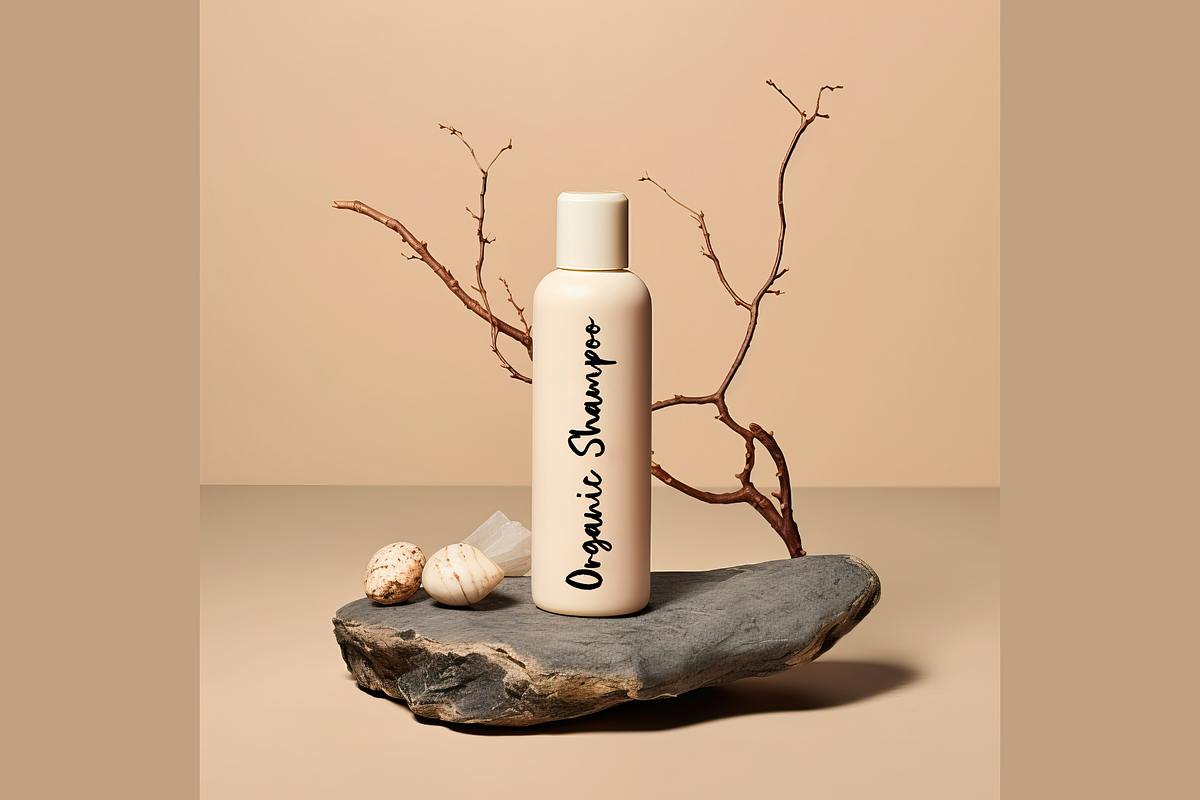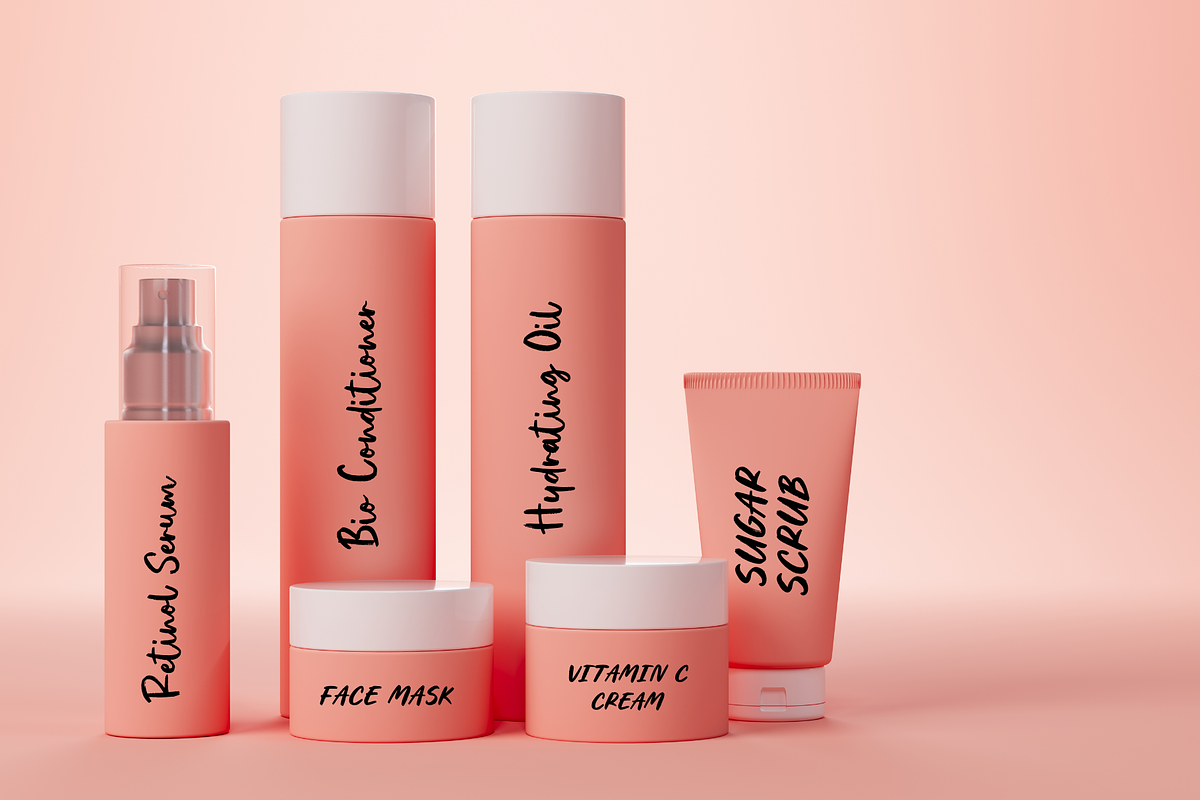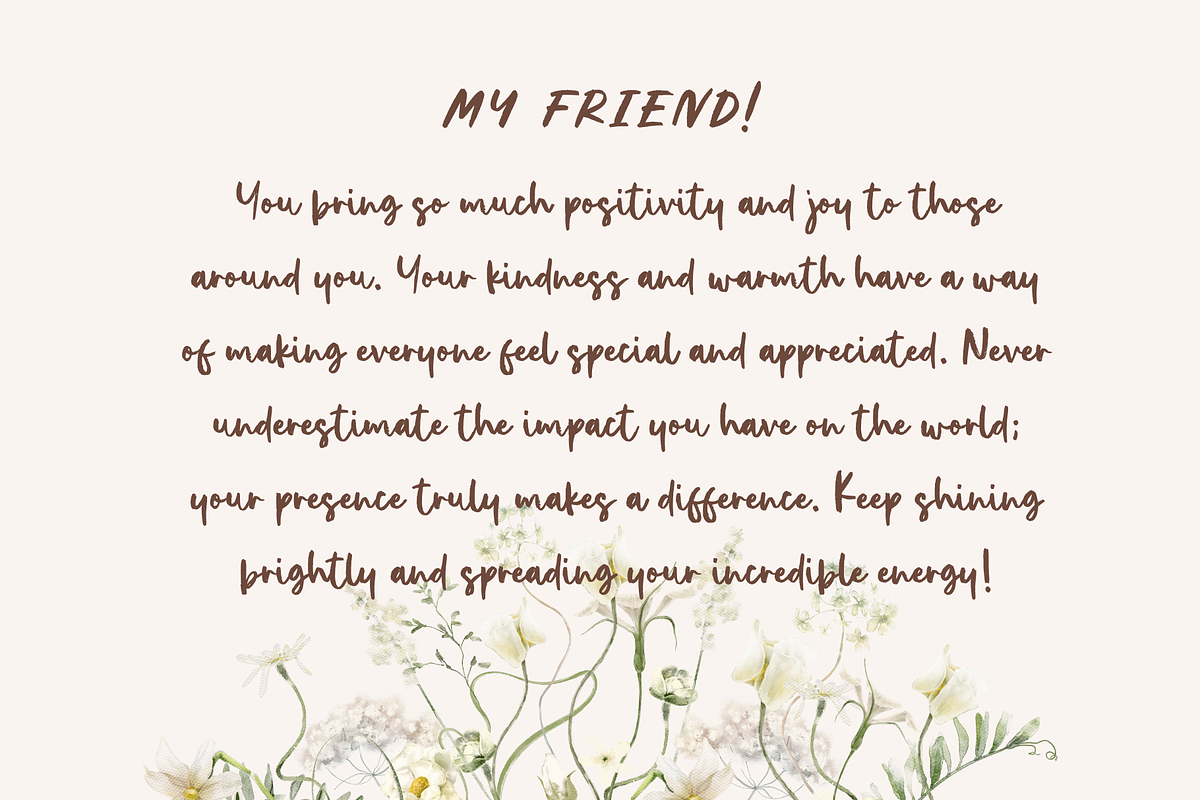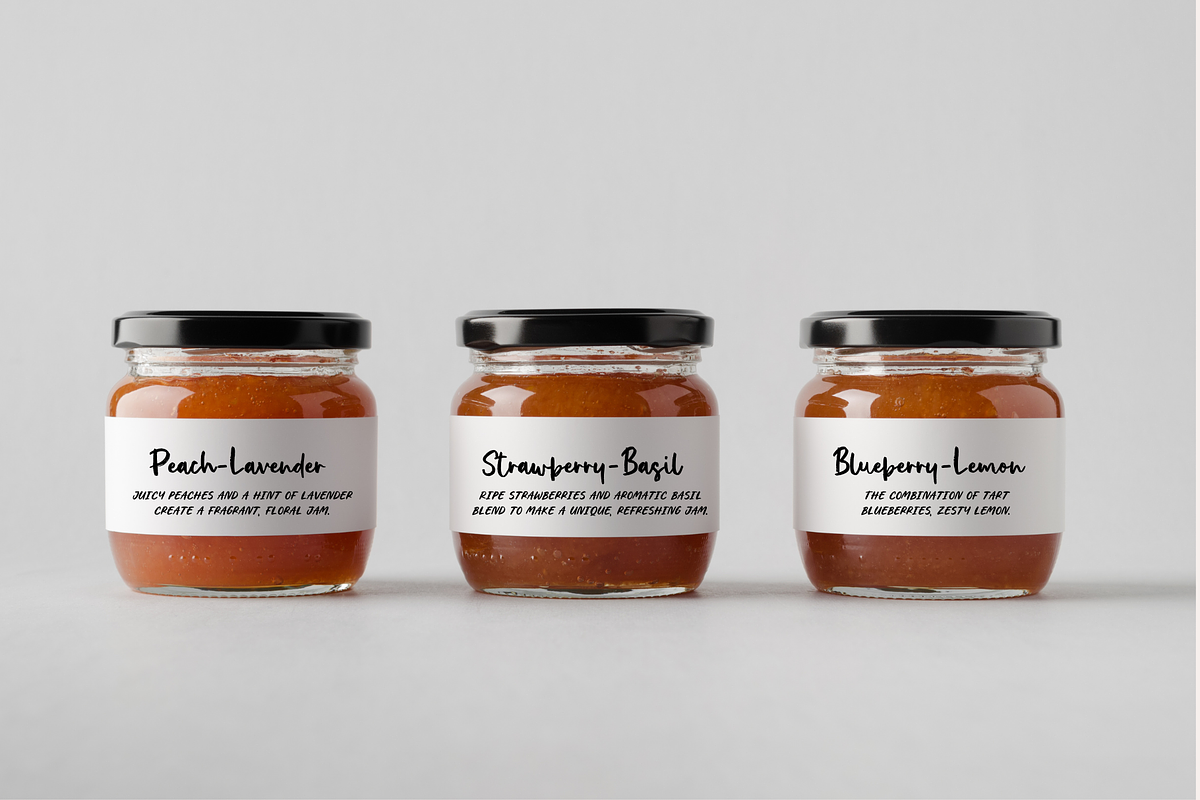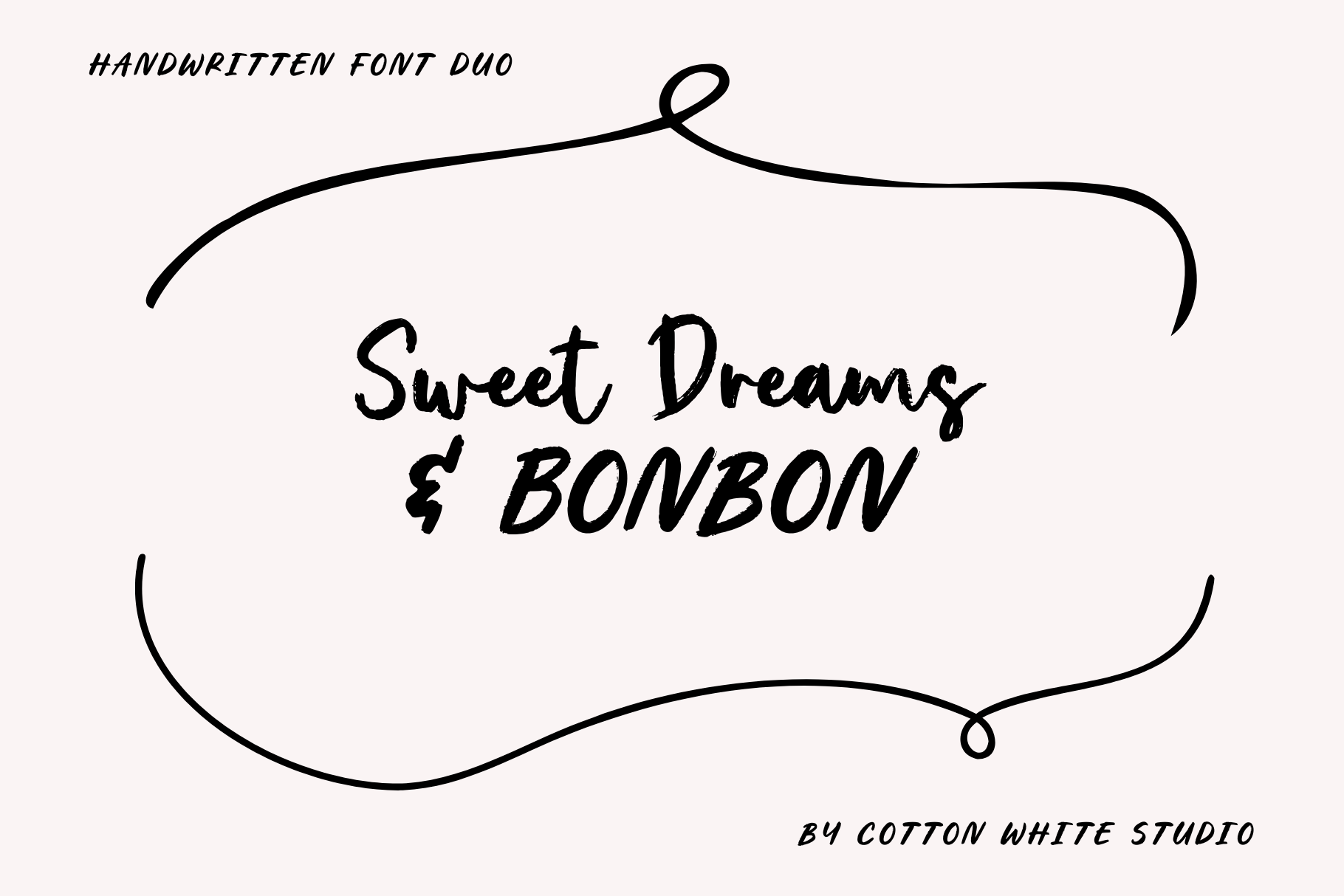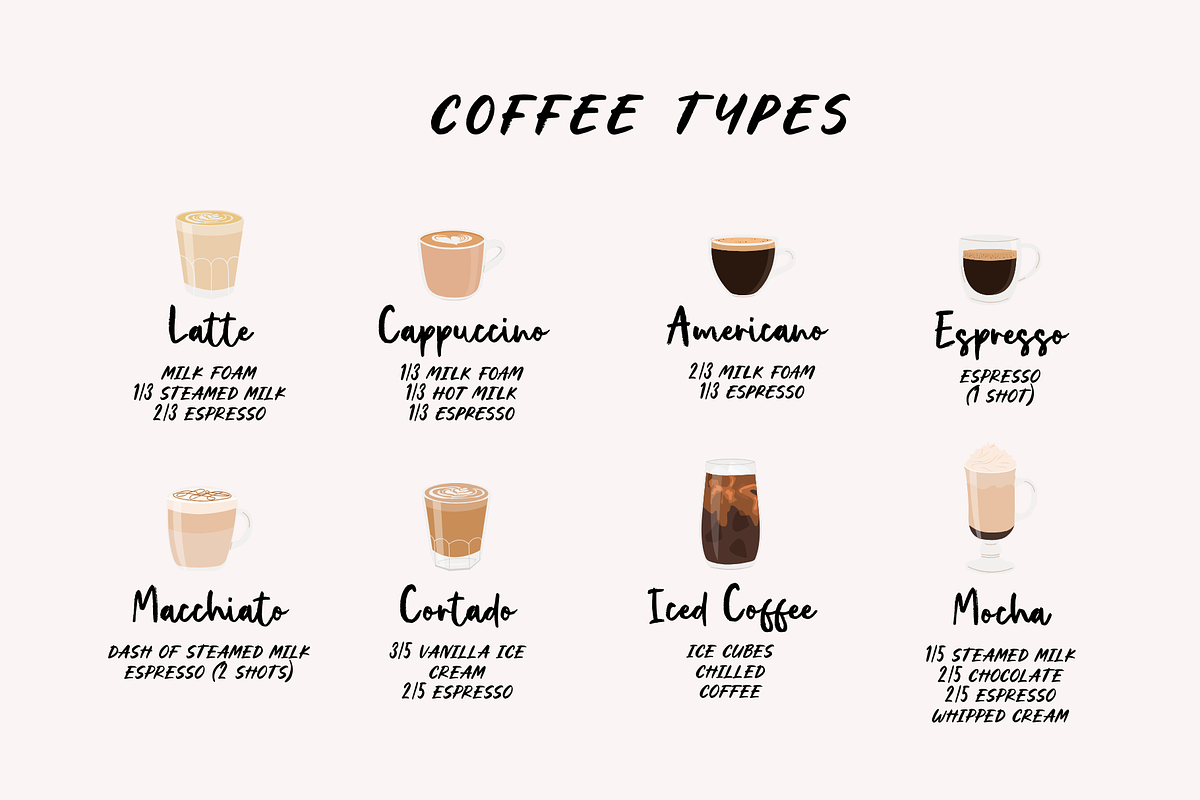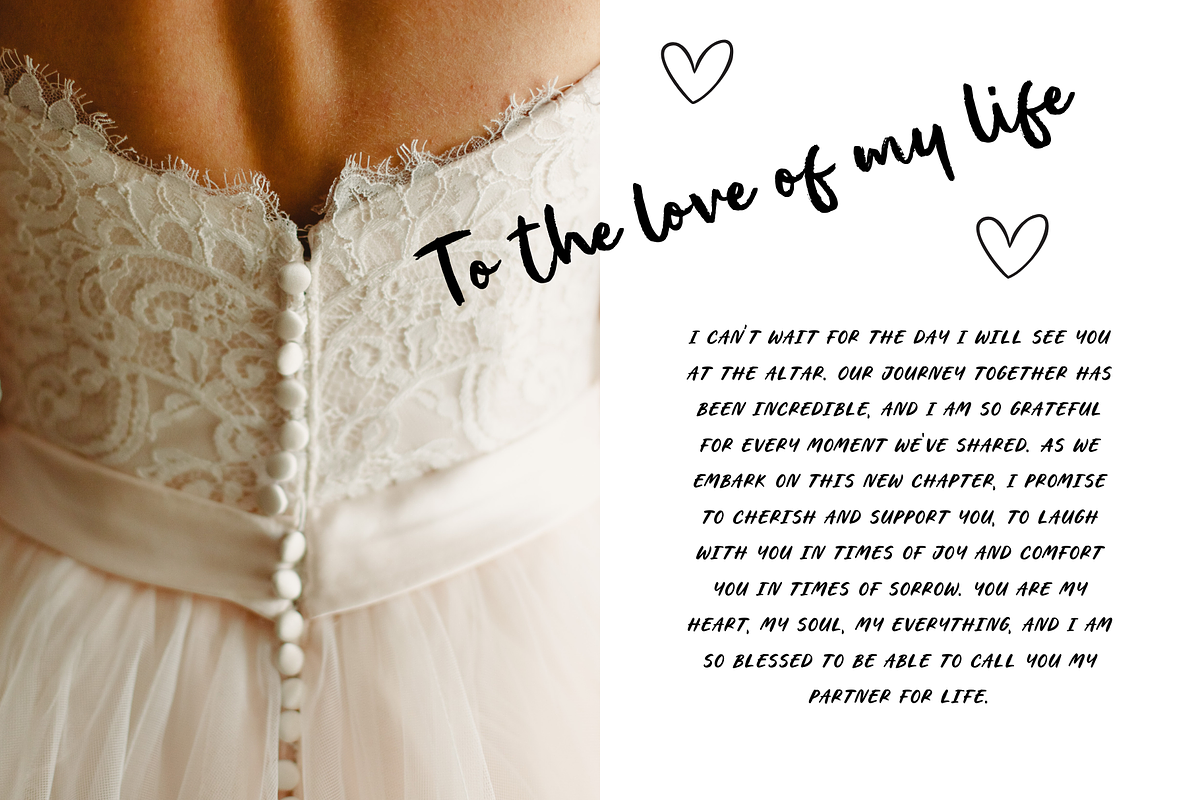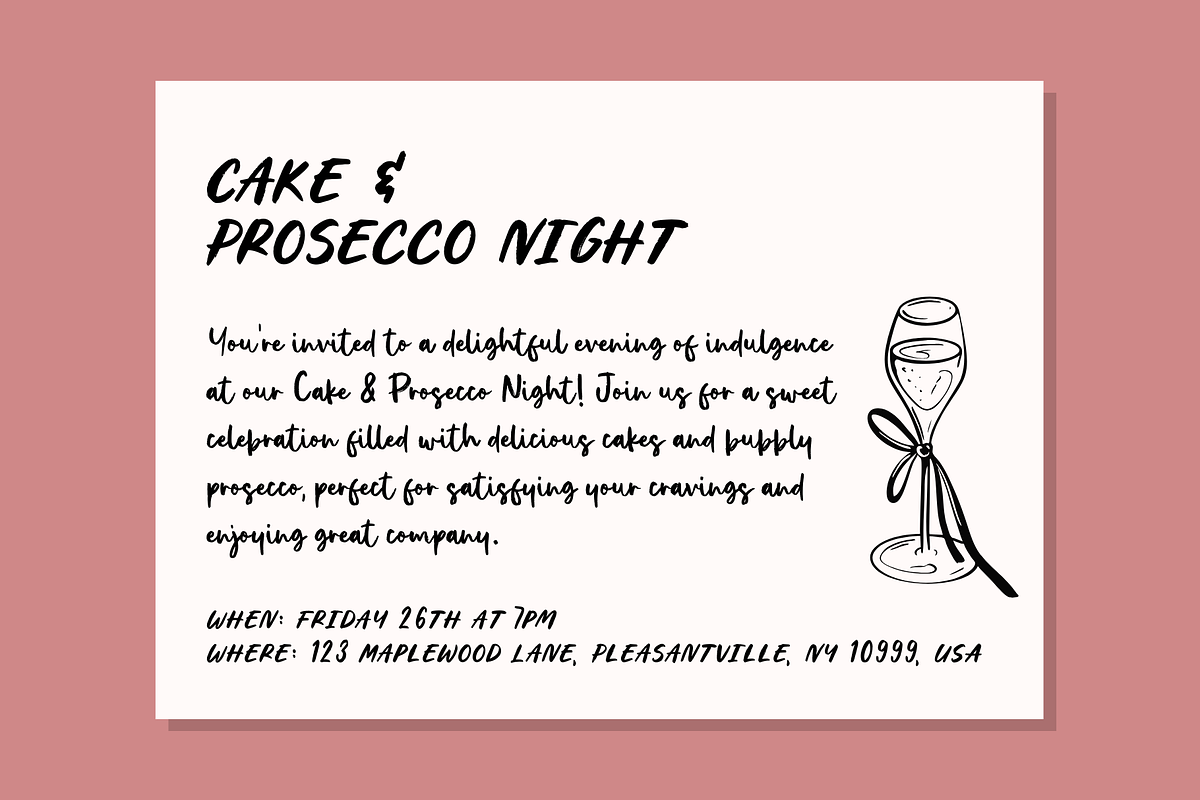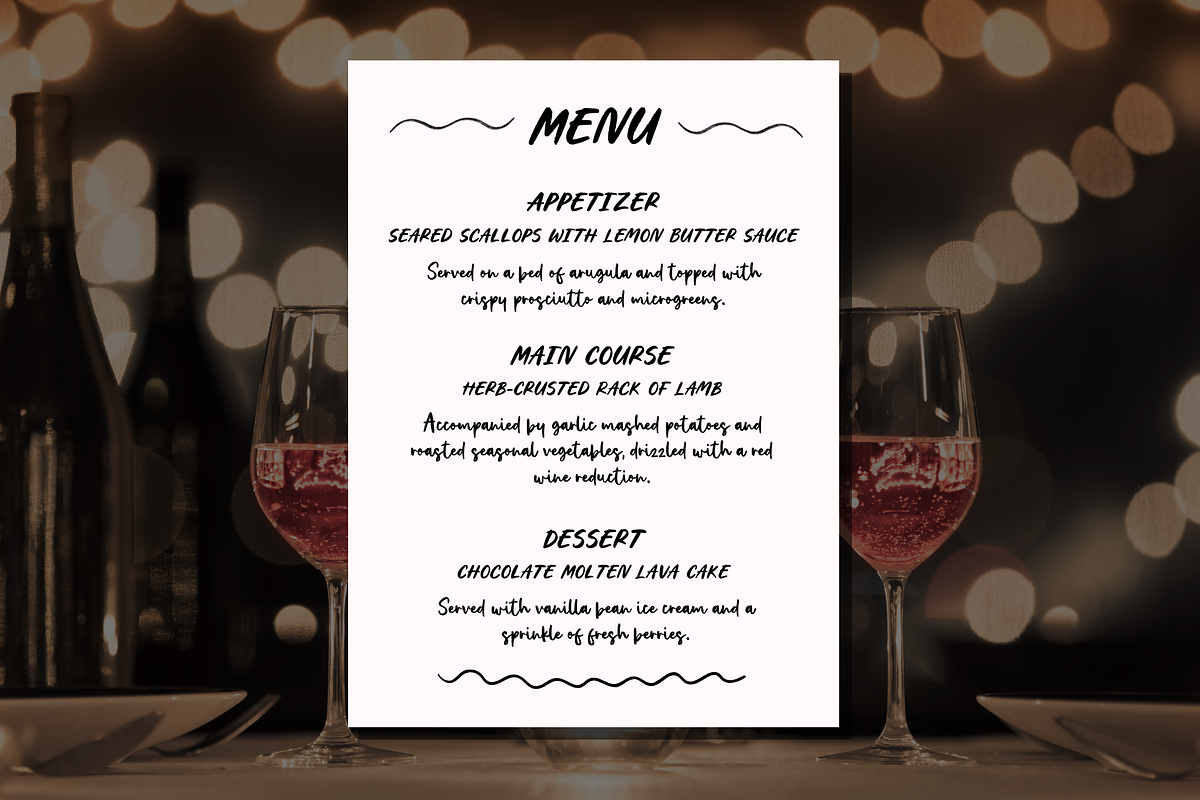
Sweet Dreams & Bonbon Font Duo
Unleash your creativity with our charming Messy Handwritten Font Duo! Perfectly imperfect, this font adds a personal touch to any project, making it ideal for invitations, quotes, and branding that craves authenticity. Each letter captures the essence of handwritten notes, bringing warmth and character to your designs. Whether you're crafting a cozy café menu or a heartfelt greeting card, our Messy Handwritten Font will set the perfect tone. Stand out and let your message shine with a font that feels like it was made just for you! Transform your typography today and watch as your ideas come to life in a beautifully unique way. Get started now and make your words unforgettable!